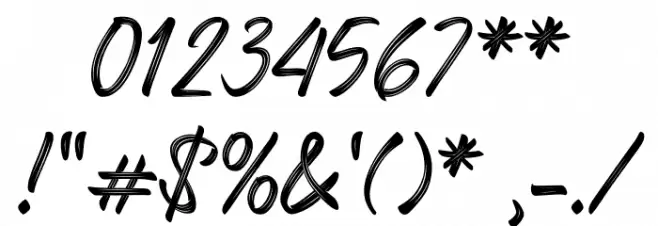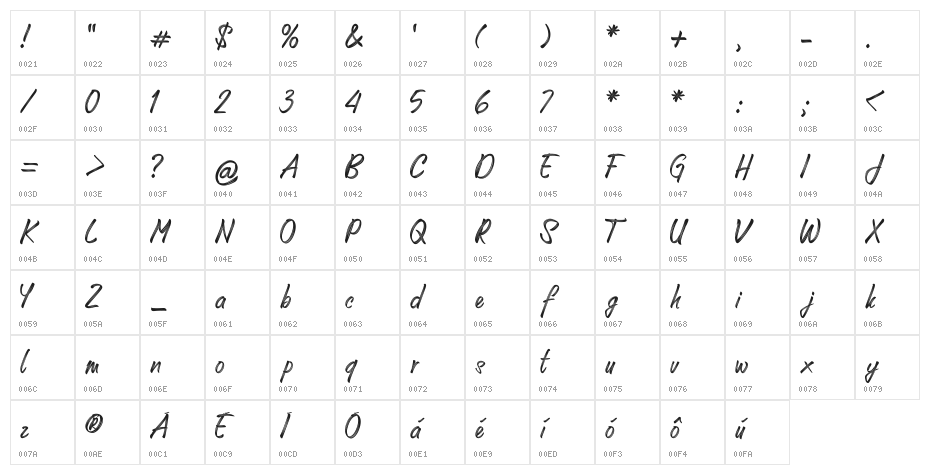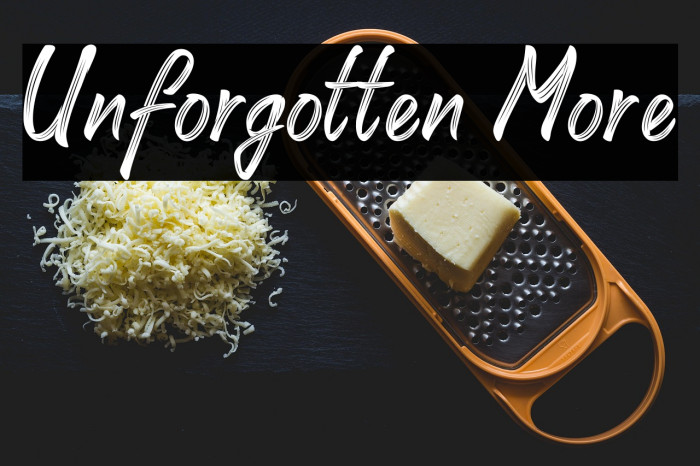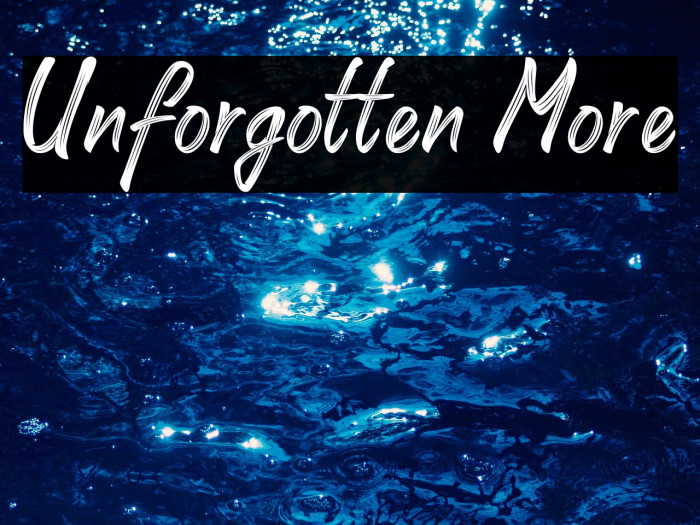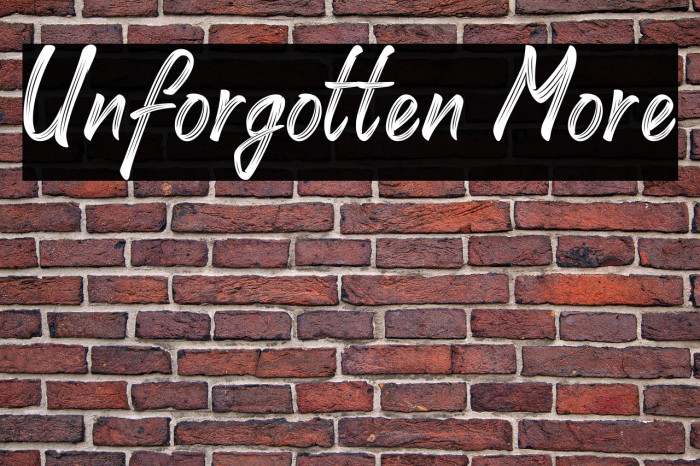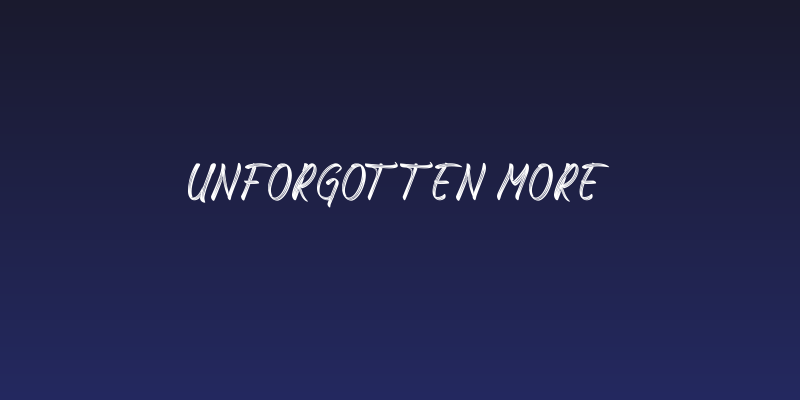
Unforgotten More Font
This font features a dynamic and expressive handwritten style, characterized by its bold and fluid strokes. The letters are slightly slanted, giving a sense of motion and energy. The uppercase and lowercase letters maintain a consistent style, with some playful variations in the curves and loops. Numbers and special characters are designed to match the lively aesthetic, making them suitable for creative and informal applications. The overall appearance is both artistic and approachable, making it ideal for projects that require a personal touch.
A bold, expressive handwritten font with fluid strokes and dynamic style.
- Proposed Projects: Ideal for greeting cards, invitations, personal branding, and creative posters.
- Use Case: Logos, Headlines, Creative projects